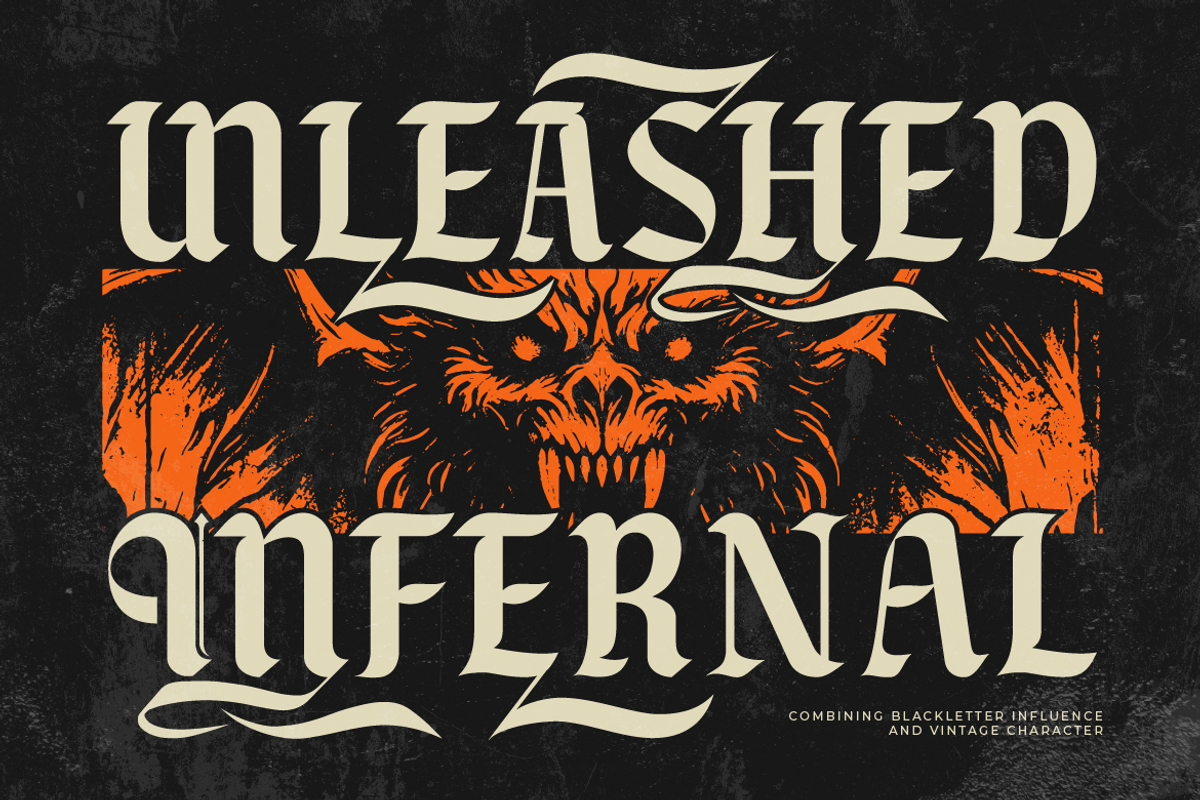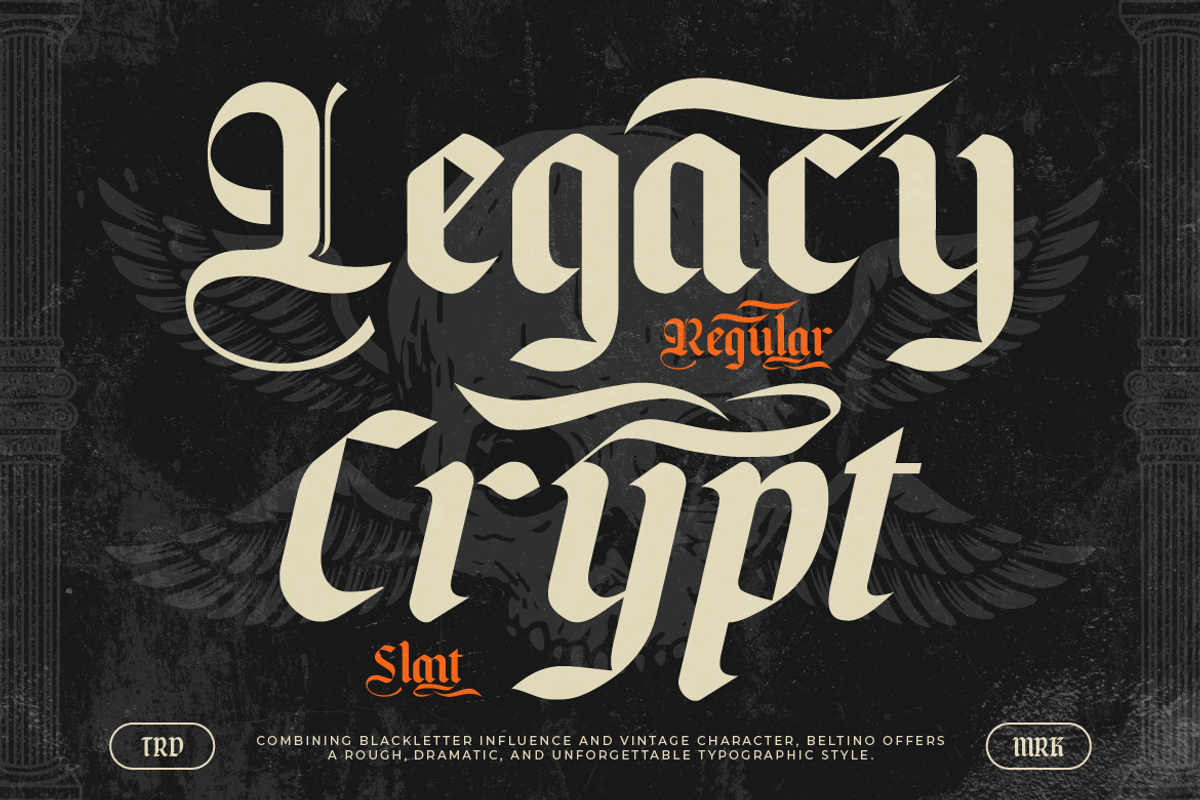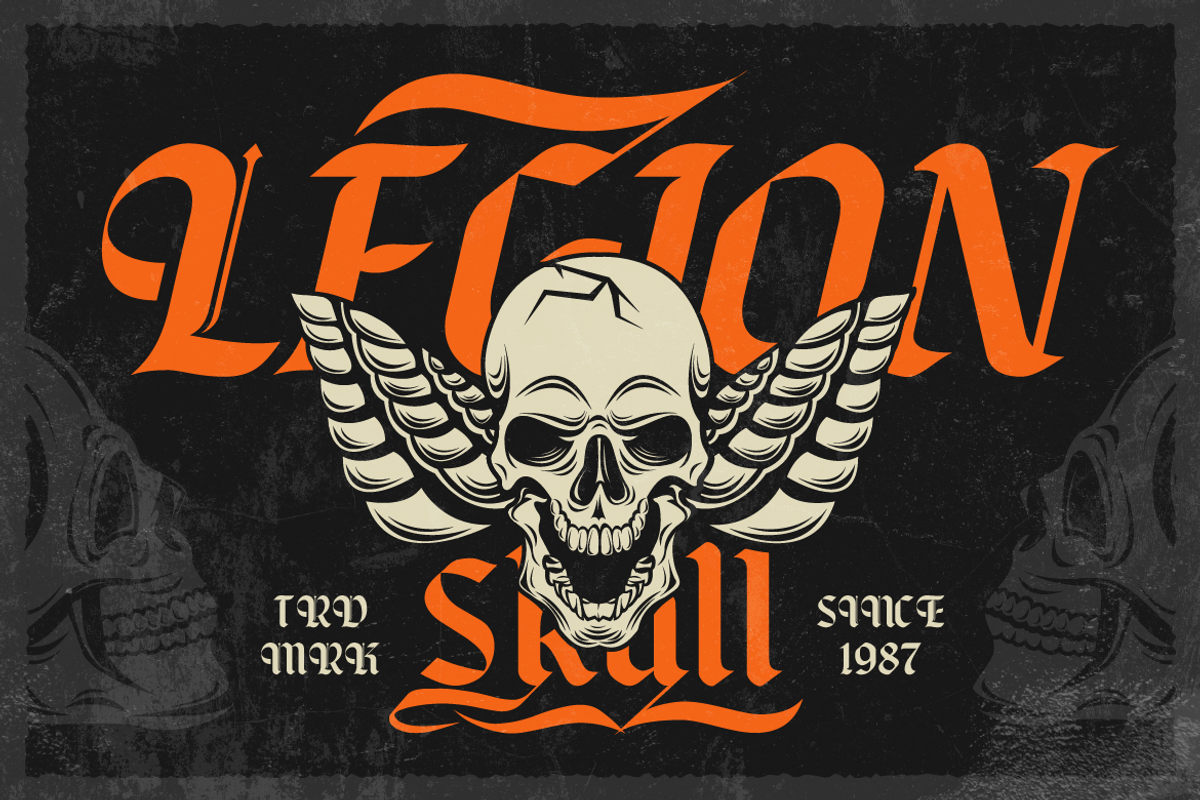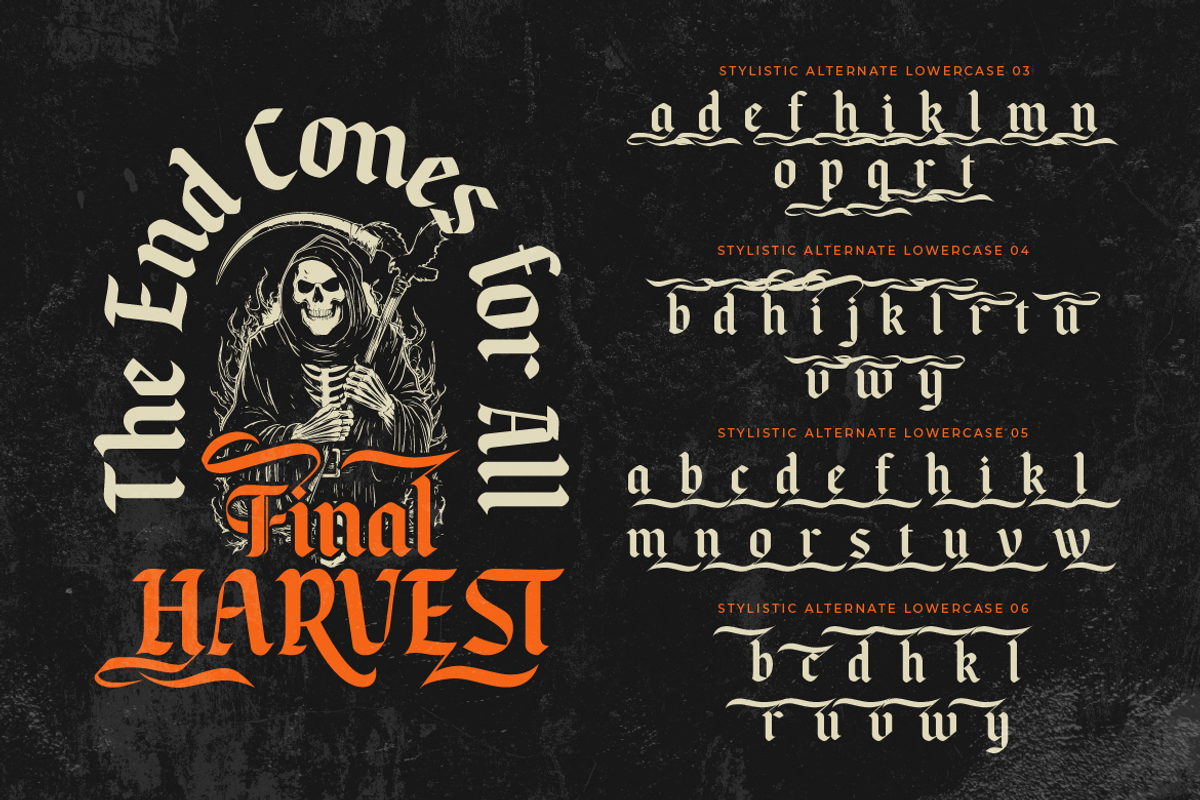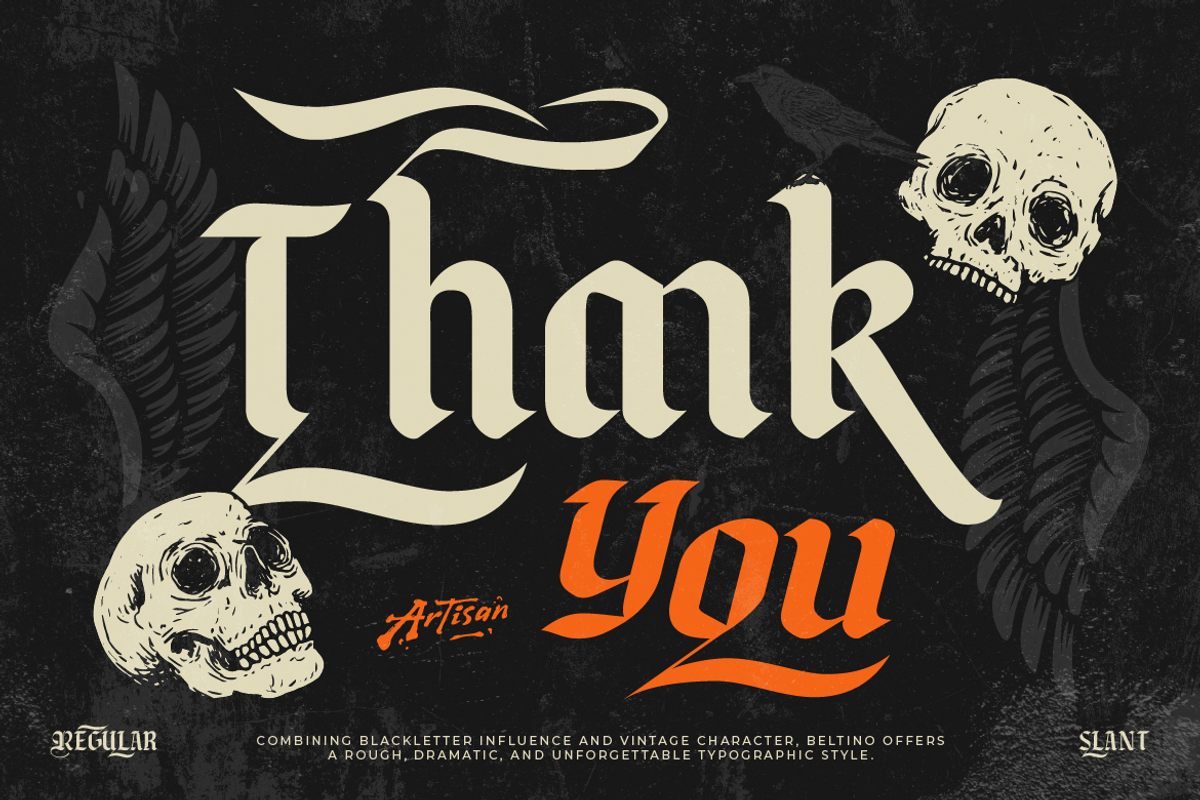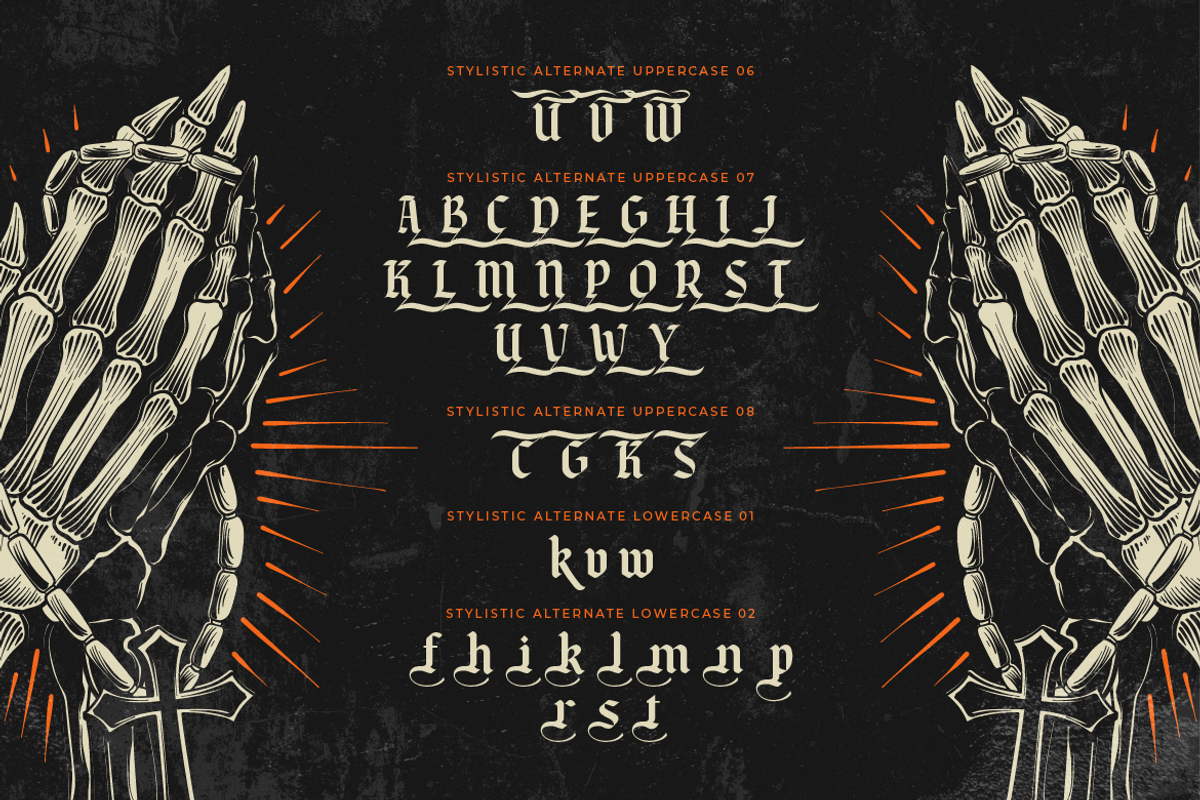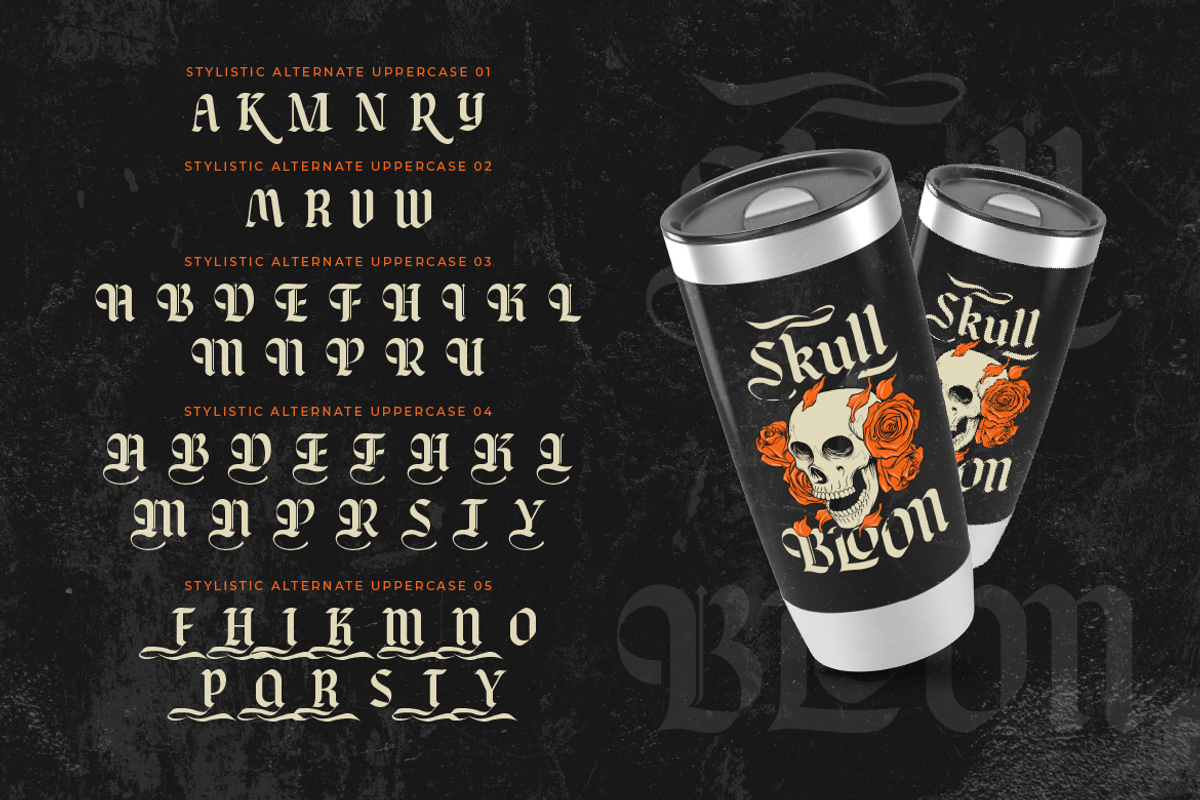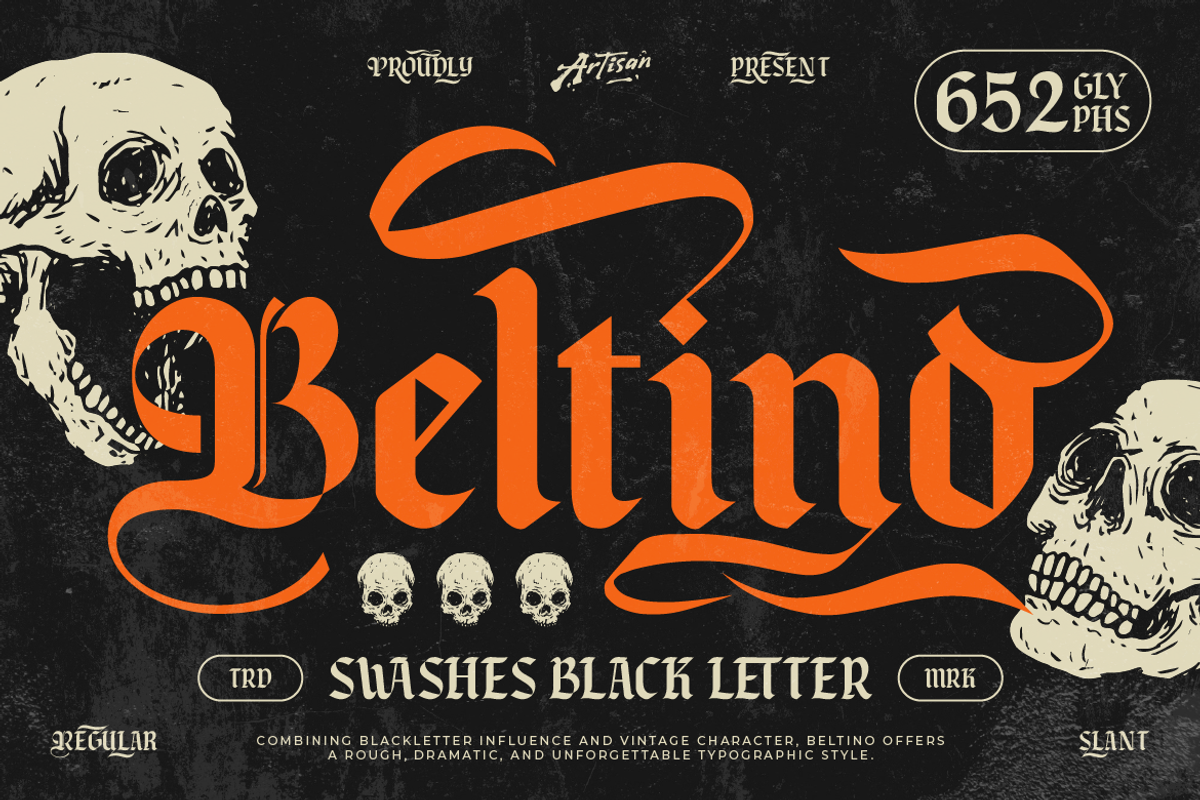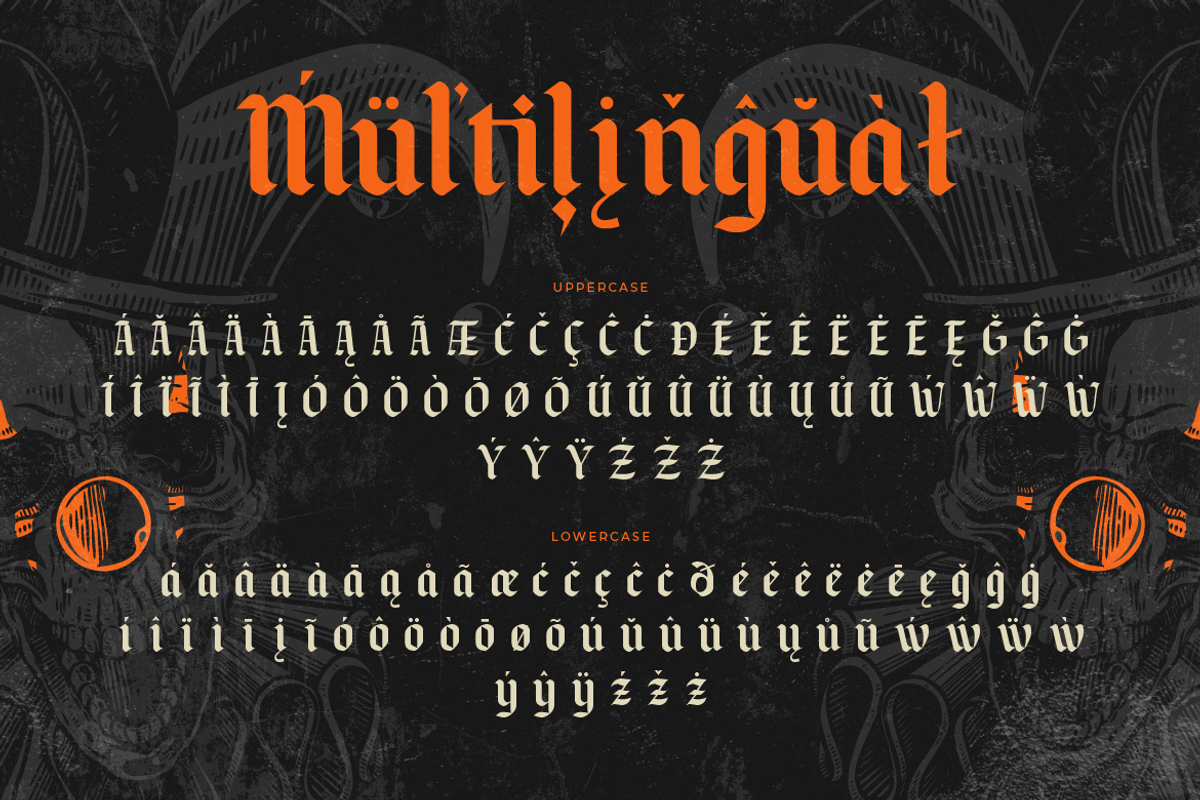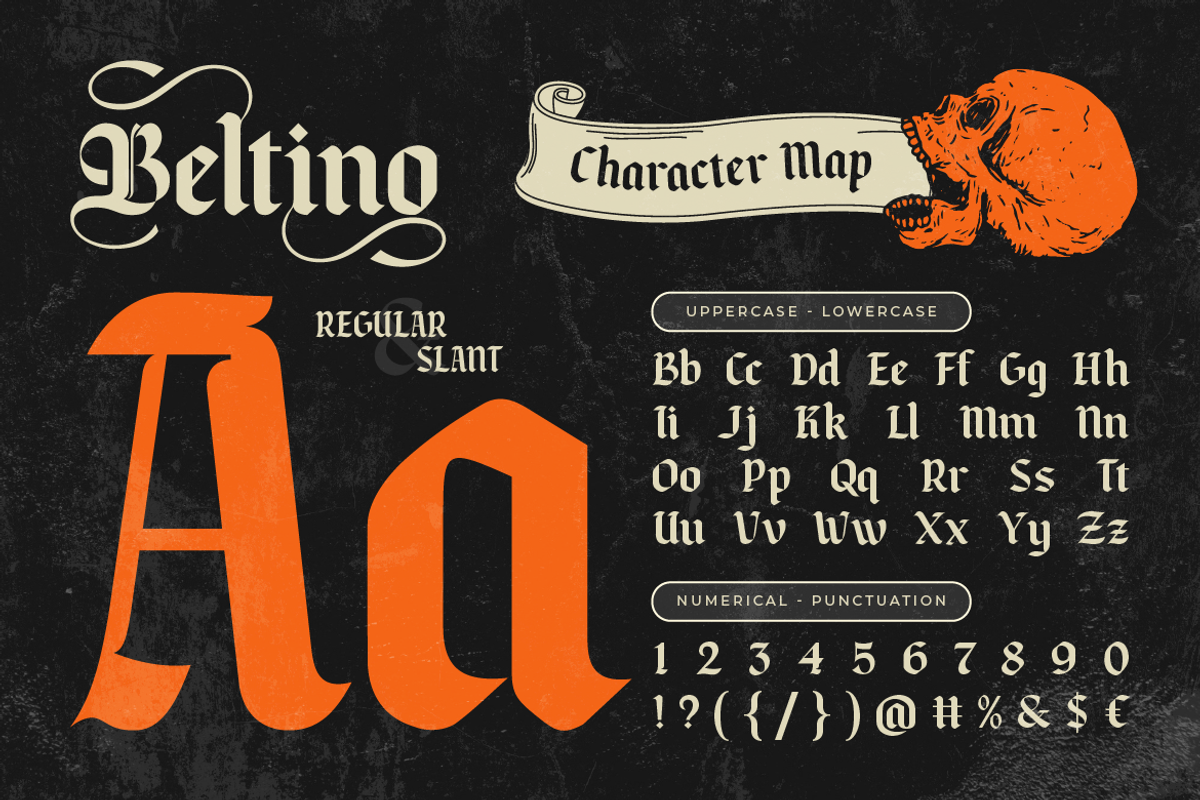
Beltino
Beltino is a bold swashes blackletter font that blends gothic heritage with raw vintage attitude. Inspired by classic old-style lettering and rebellious underground aesthetics, this typeface delivers a dramatic, rough, and unforgettable presence in every word. With its sharp angles, heavy strokes, and expressive swashes, Beltino is designed to dominate headlines, logos, merchandise, and statement designs. The dramatic alternates give you full control to create typography that feels handcrafted, intense, and full of character. Beltino combines blackletter influence and vintage character to create a rough, dramatic typographic style that feels both historical and rebellious. The alternates allow you to switch from classic gothic to aggressive modern in seconds.
- Streetwear branding
- Tattoo design
- Metal / Rock band logos
- Vintage liquor labels
- Motorcycle / biker themes
- Dark gothic posters
- Merch design (t-shirts, cups, vinyl covers)
- Halloween projects
- Bold editorial headlines